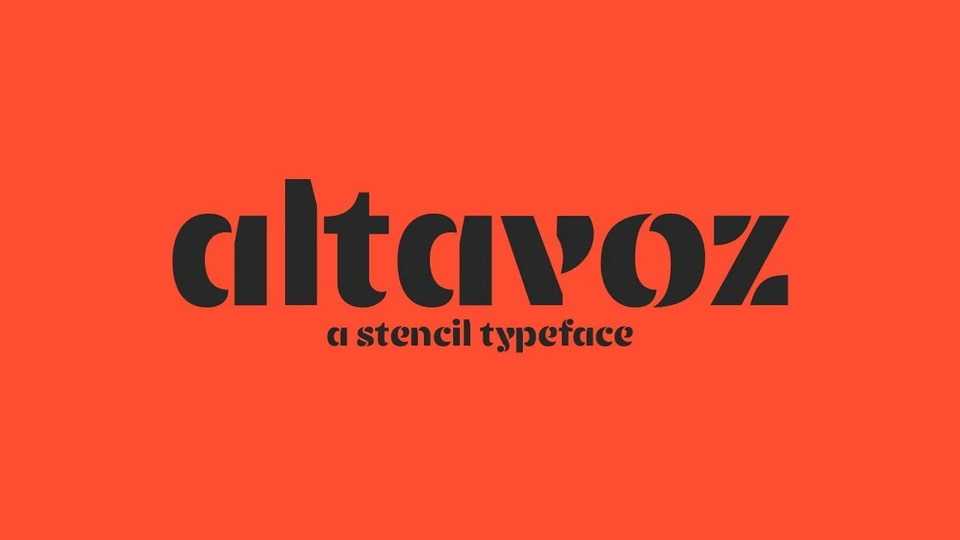
Download Altavoz font, a stencil typeface made by the streets. Inspired by the social protests in Colombia. It aims to be a stylistic alternative within stencil typography.
Designer: Replicante